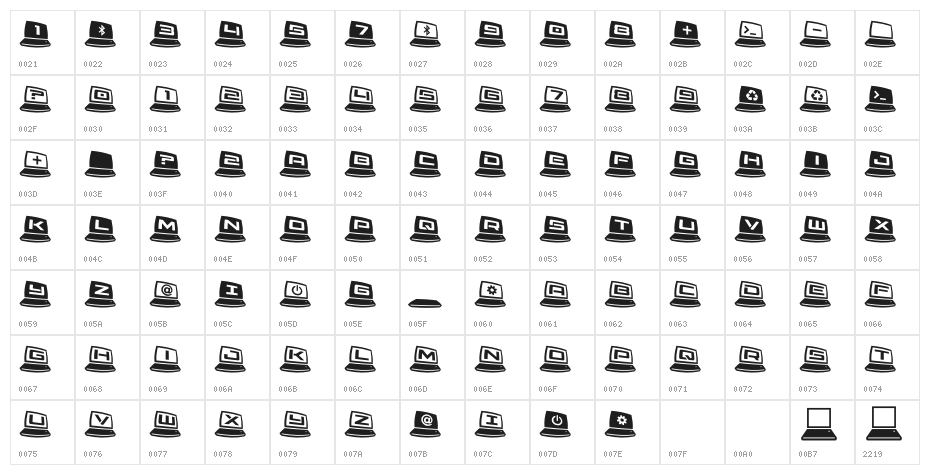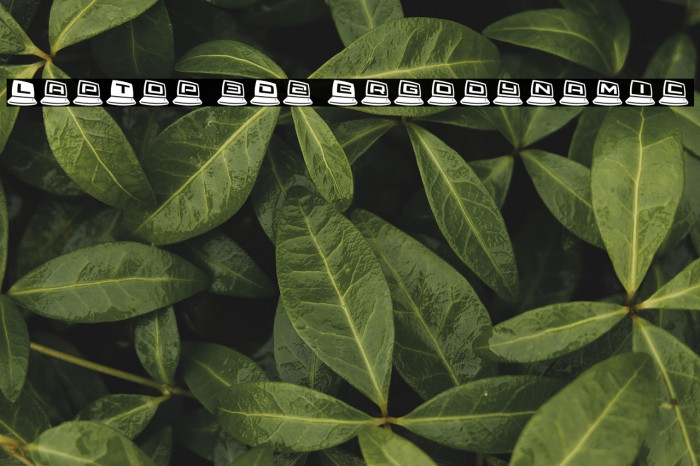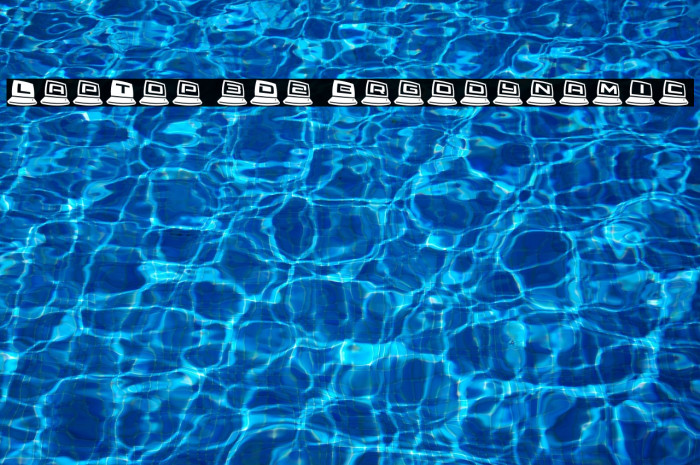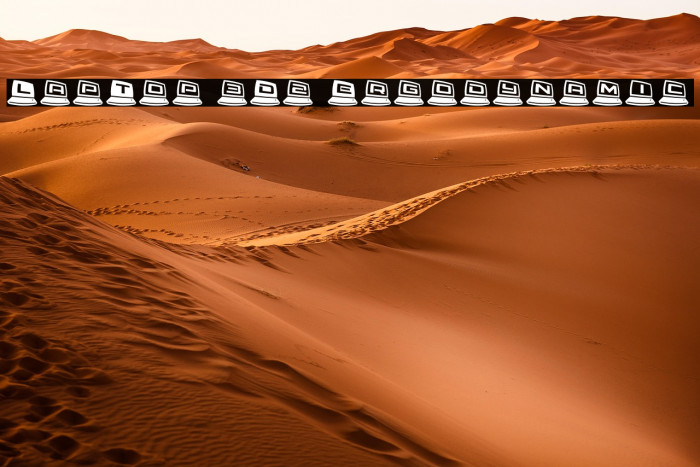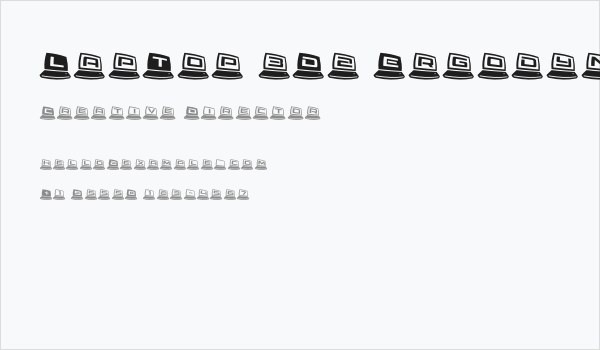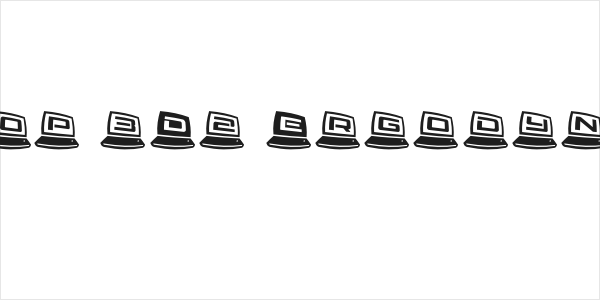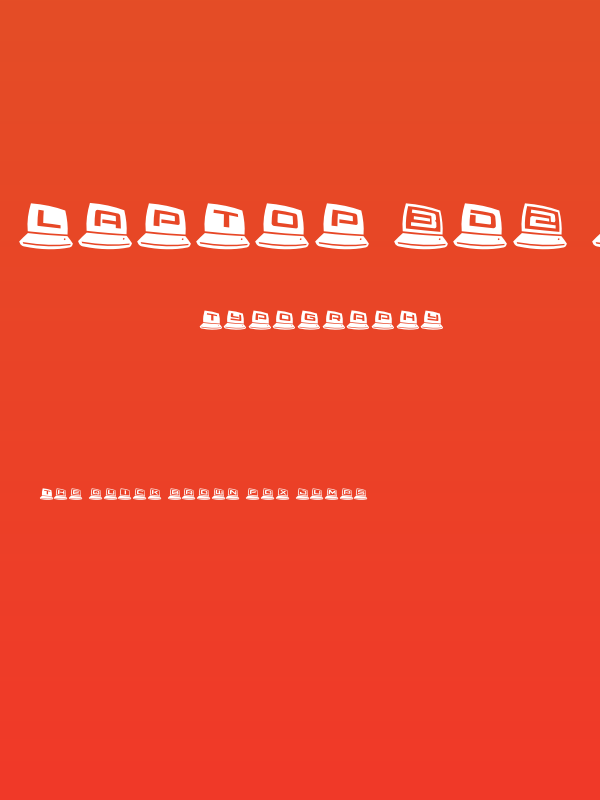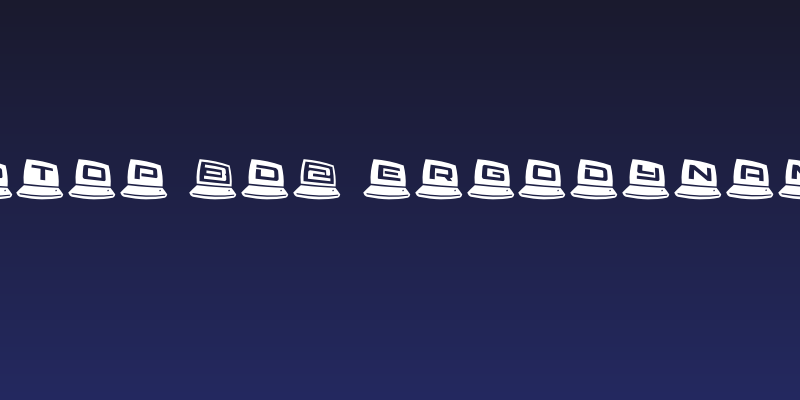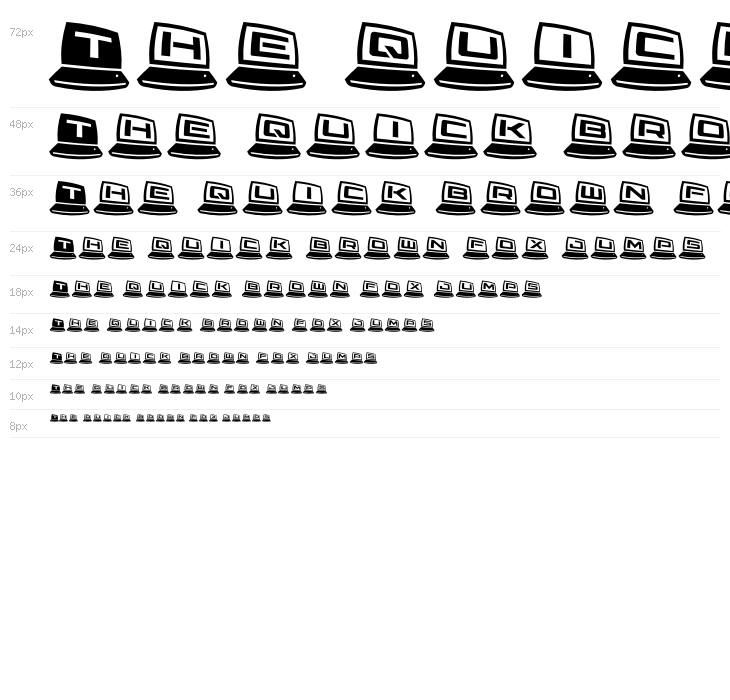
LapTop 3D2 Ergodynamic Font
LapTop 3D2 Ergodynamic Description
This font features a unique and playful design where each character is embedded within a stylized laptop icon. The letters and numbers are bold and uppercase, with a consistent geometric shape that gives them a modern and tech-inspired appearance. The characters are well-defined and easy to read, making them suitable for digital-themed projects. The special characters, such as symbols and punctuation, maintain the same design ethos, ensuring uniformity across the font. This font's distinctive style makes it ideal for creative and technology-related applications.
| Proposed Projects | Ideal for technology-themed posters, digital marketing materials, educational tools, and playful branding projects. |